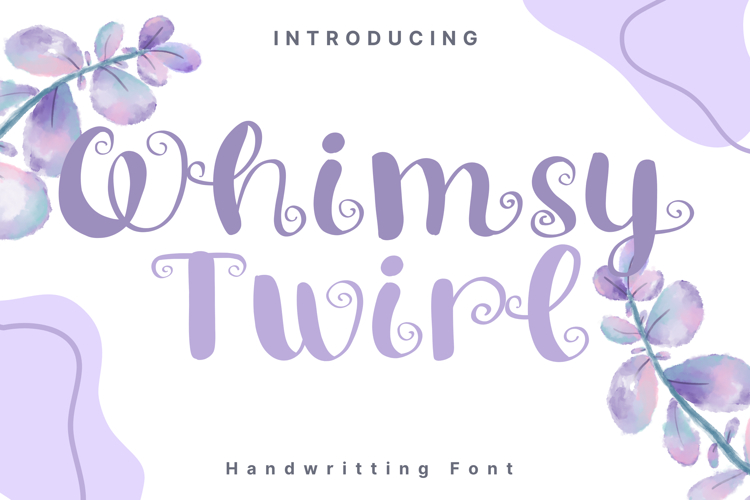
Whimsy Twirl Style
Whimsy-Twirl
Whimsy Twirl is a delightful and playful handwritten font filled with personality and charm. Each letter is adorned with elegant curls and twirls, giving it a magical, fairytale-like feel. Its whimsical design is perfect for dreamy branding, feminine logos, greeting cards, children's storybooks, wedding decor, and anything that calls for a touch of fantasy. The soft lavender tones and flowing letterforms create a joyful, enchanting atmosphere that captures imagination.